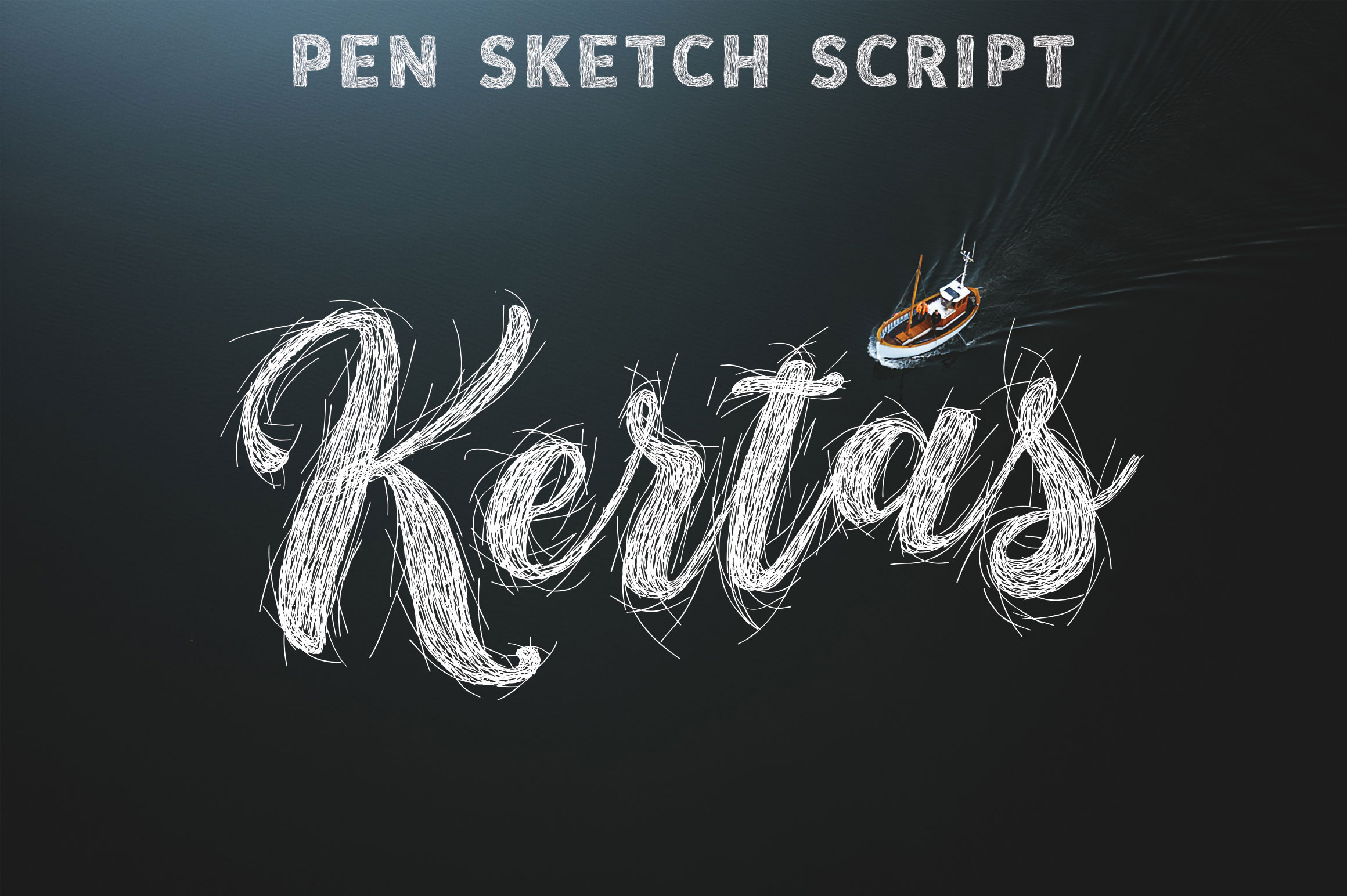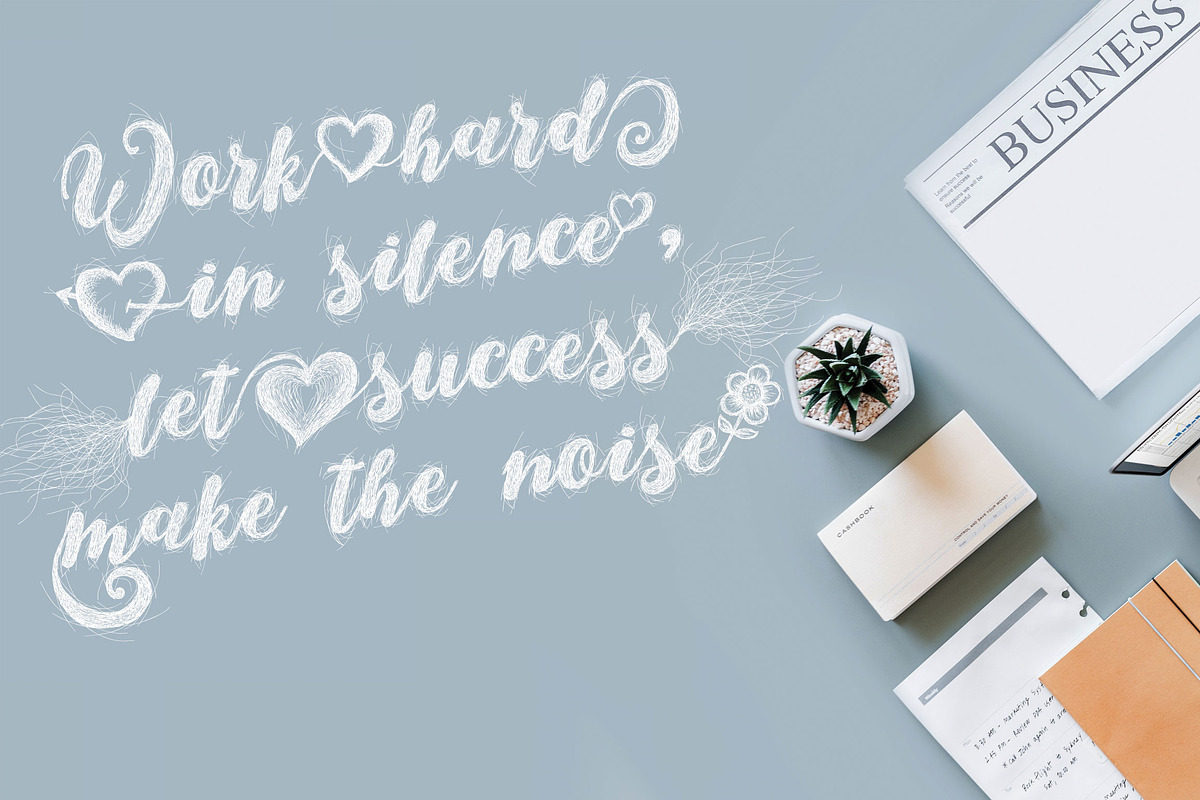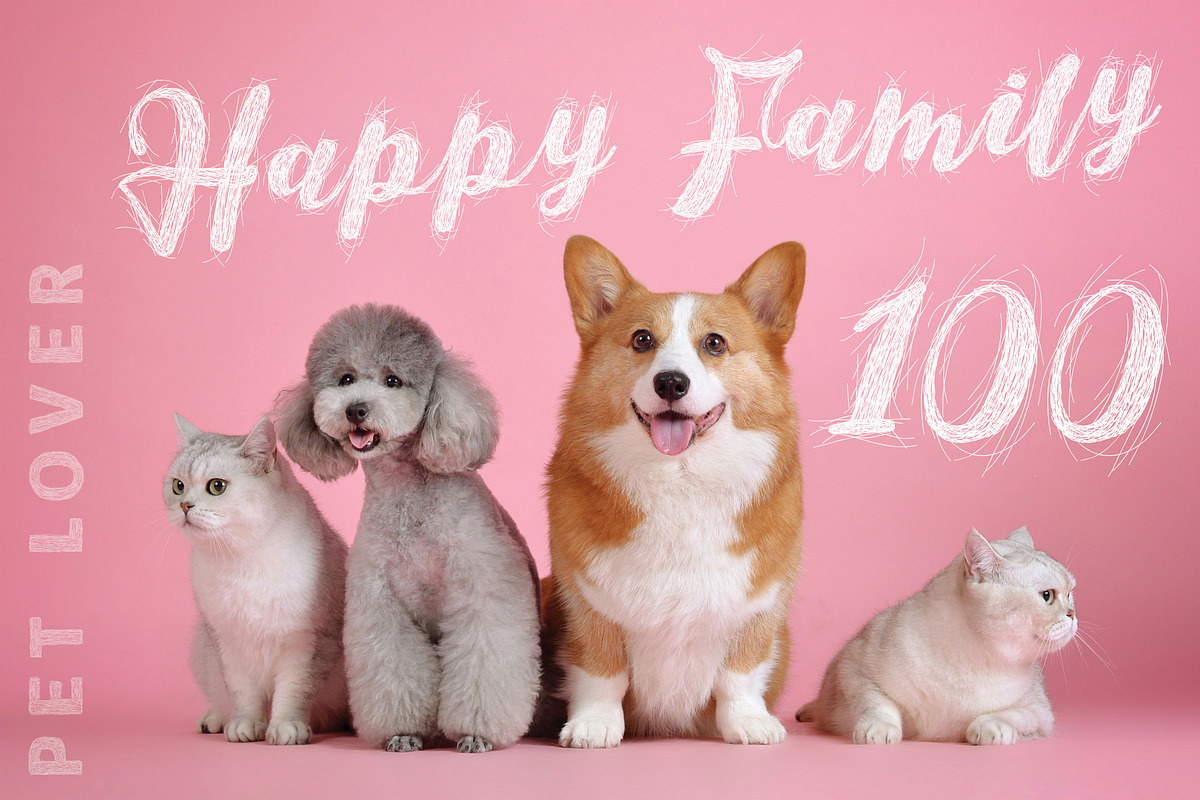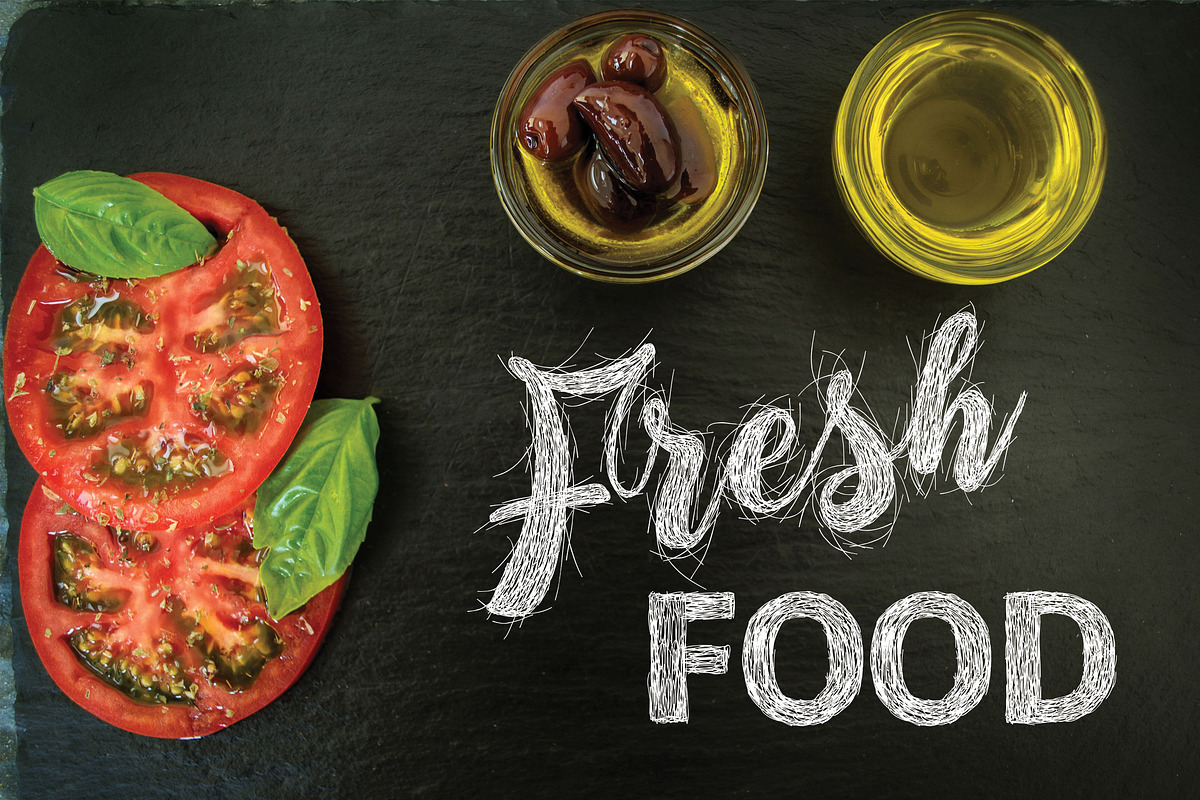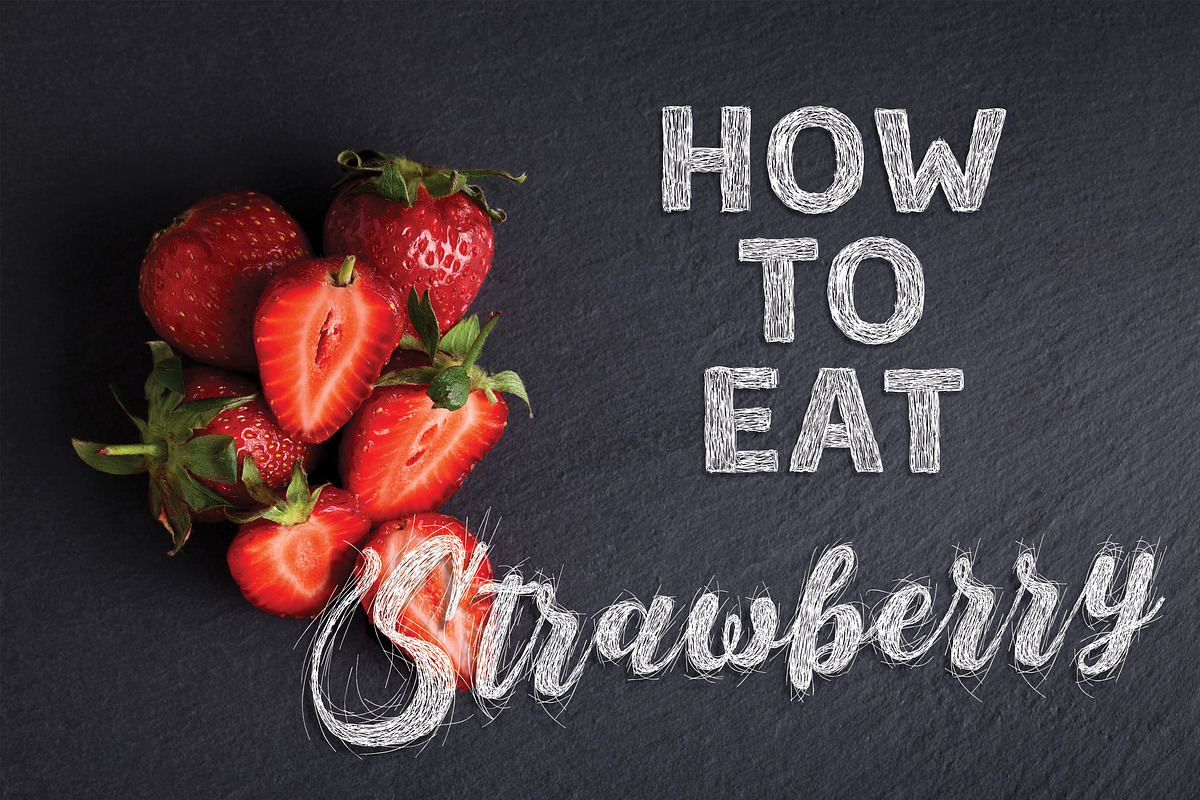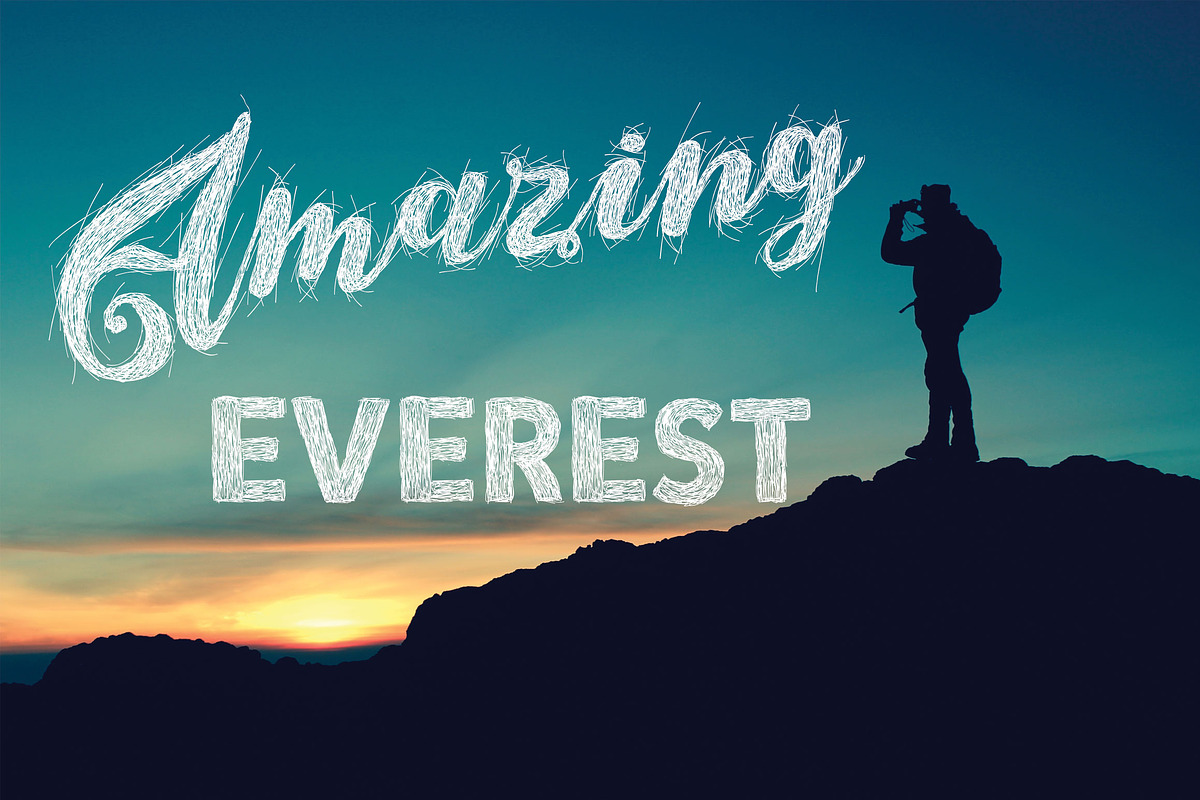
Kertas Script | Pen Sketch Font
Introducing a unique pen sketch script style! Crafted with pen, sketched to script style. It will give fresh look for your design, because this style is rare. This typeface will nice font title or subtitle in YouTube thumbnail, book, magazine, flyer, etc.
This font only supported to uppercase, lower case, number, and some symbols, only for basic Latin character.
Featured with cute portable swash and swoosh, and two lovely connector.